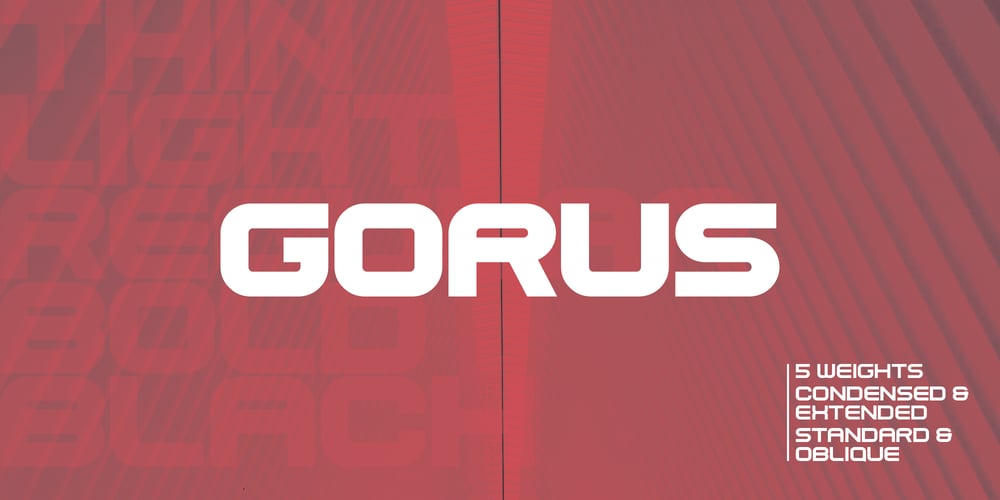
Gorus Font Family was designed by Stanislav Hatznik and published by Smartfont. Gorus contains 30 styles and family package options. Gorus is a variable width sans serif type family that’s been created to give a powerful but flexible tool to create strong headlines, posters, logos, and display text with tight spacing and maximum space coverage.A contemporary geometric family in 15 styles brings a modern and strong impression to your design.